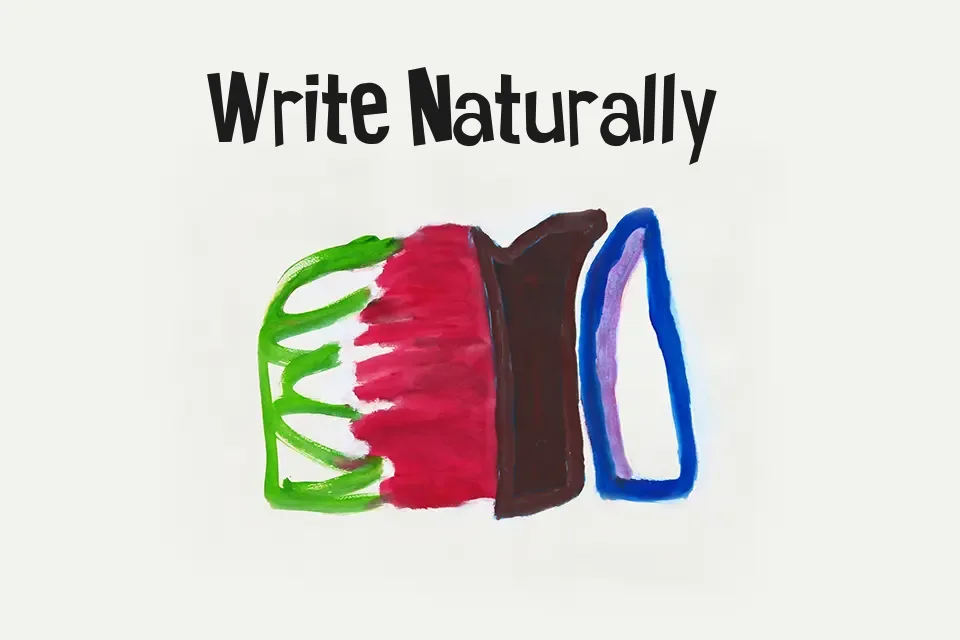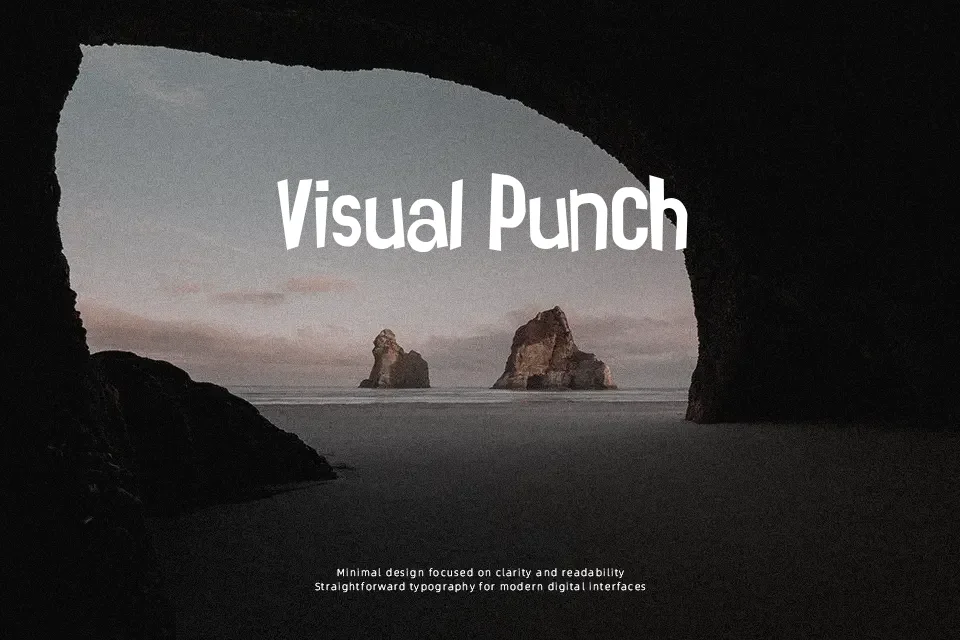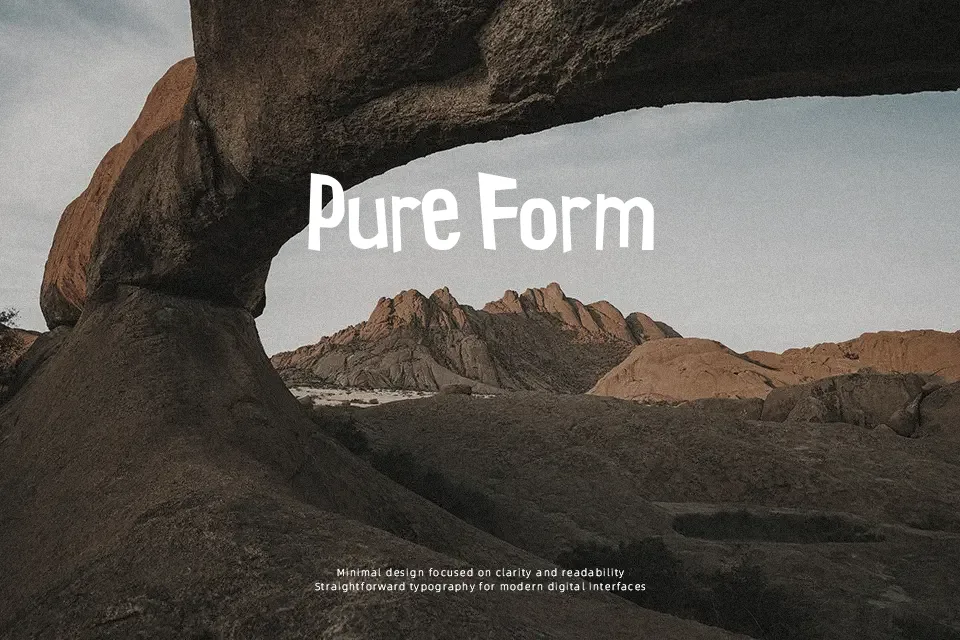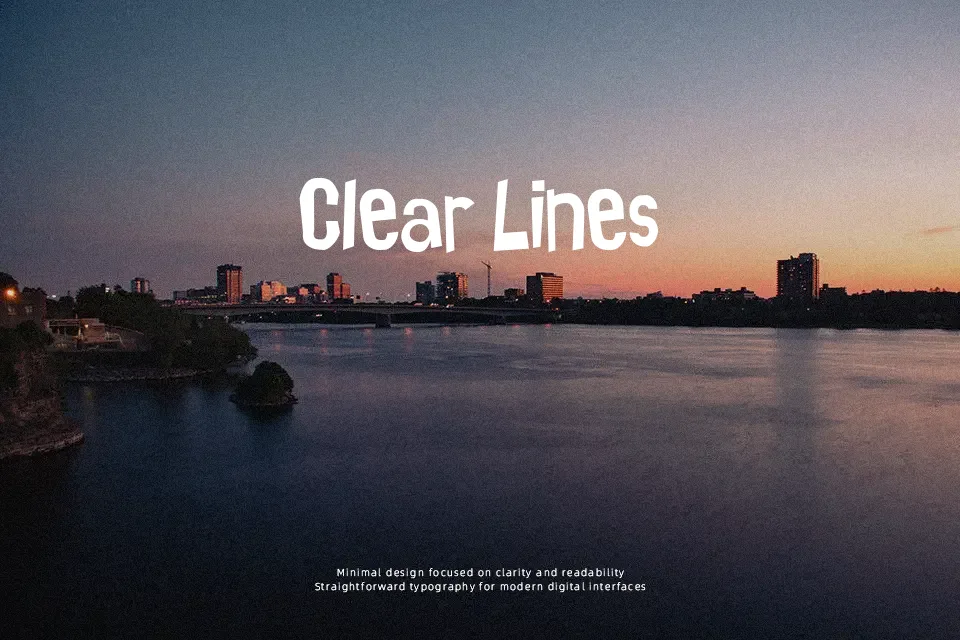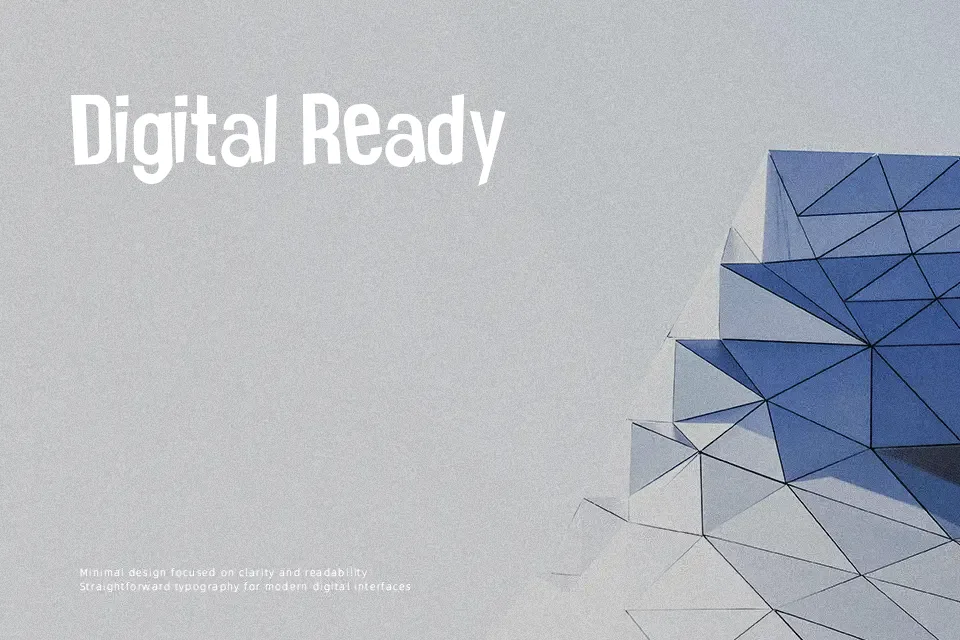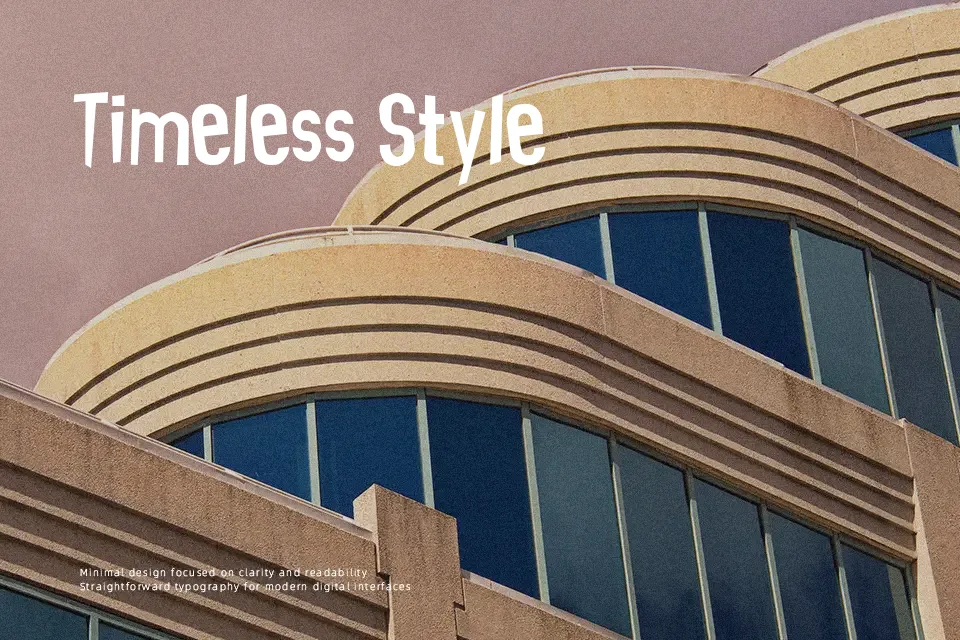
November Rain Font
Designed by Gobella
November Rain Font uses thick, rounded letterforms with a soft cartoon-like structure and a compact display presence. The strokes appear broadly even, while the curved shapes give uppercase and lowercase characters a friendly, informal rhythm. Its proportions work best in short words, where the individual forms can carry the layout without creating crowded text. The spacing helps maintain visibility in larger headlines and graphic titles. It is a practical choice for playful labels or illustrated posters, but its decorative weight makes it less comfortable for extended reading and small text settings.
Best For: children’s book covers,playful product packaging,party poster headlines,cartoon social media graphics
Not Ideal For: long paragraph text,small interface labels,formal business reports,dense editorial layouts